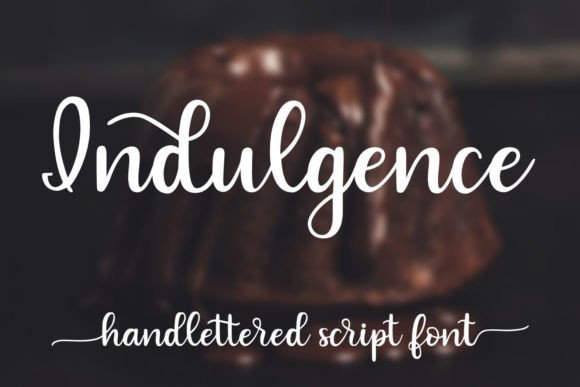
Prepare to be enthralled by Indulgence, a script font family that radiates charm and sophistication. Dive into a world of visual artistry where your creative expressions take center stage. Unleash the magic of handwritten elegance as you craft your most captivating designs, adding a personal touch that resonates with your audience.
With Indulgence, the possibilities are limitless. Adorn your wedding invitations with timeless beauty, making each heartfelt message a cherished keepsake. Let your gratitude shine through in thank-you cards that evoke genuine appreciation with every word. Inspire and uplift with quotes that come alive, leaving an indelible mark on the hearts of your readers.
Greeting cards transformed into heartfelt masterpieces, carrying your warmest sentiments with an unforgettable charm. Create logos and business cards that exude professionalism and creativity, leaving a lasting impression on clients and colleagues alike. And for all your other design endeavors, Indulgence provides the perfect touch of handwritten grace, making every project a true work of art.
Indulge in the artistry of Indulgence, where each letter flows with effortless elegance, captivating your audience with its graceful curves and impeccable style. Experience the joy of creating designs that speak to the heart, evoking emotions and leaving a lasting impression. Step into the realm of Indulgence and unlock the power of enchanting visual communication.